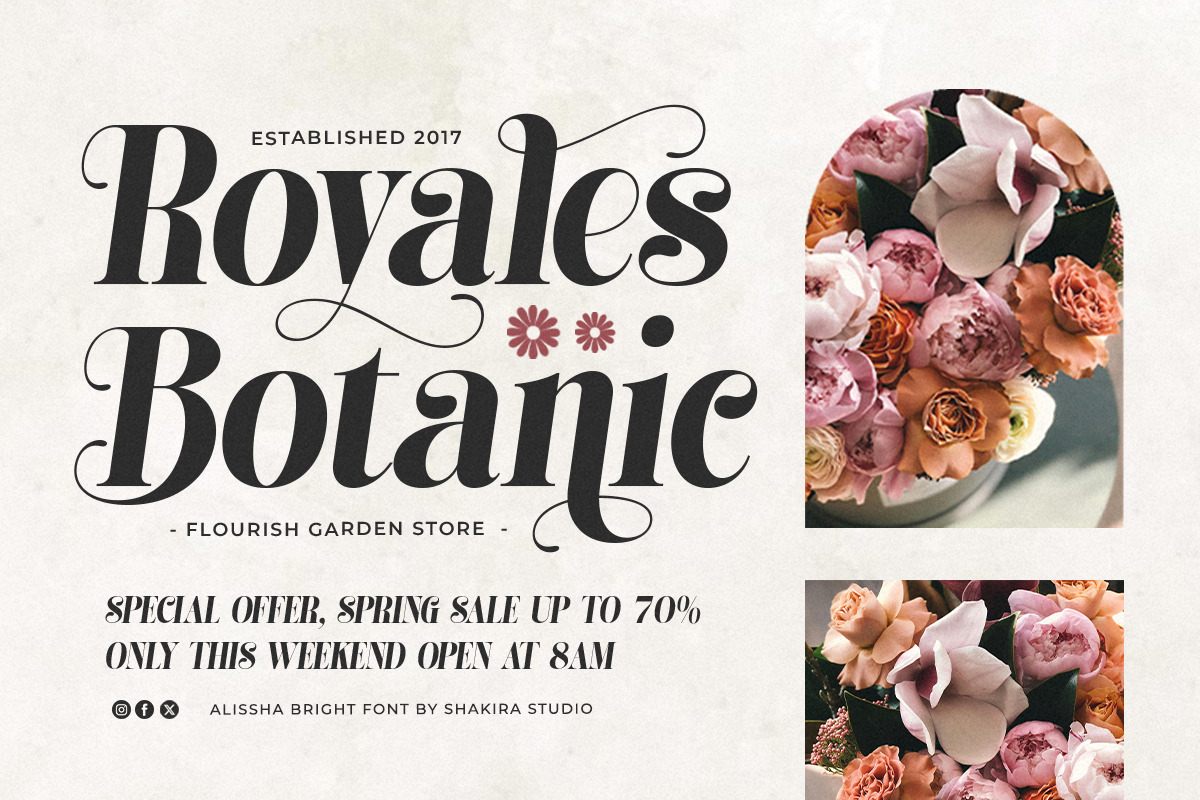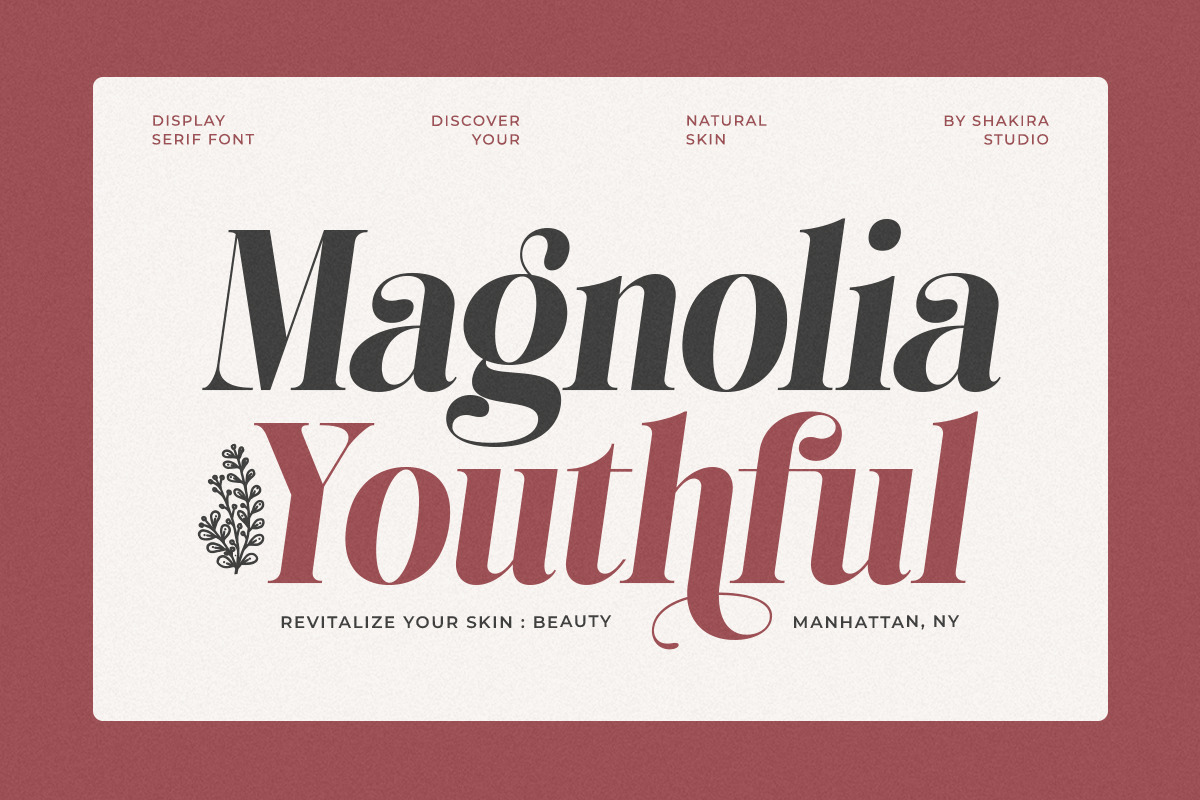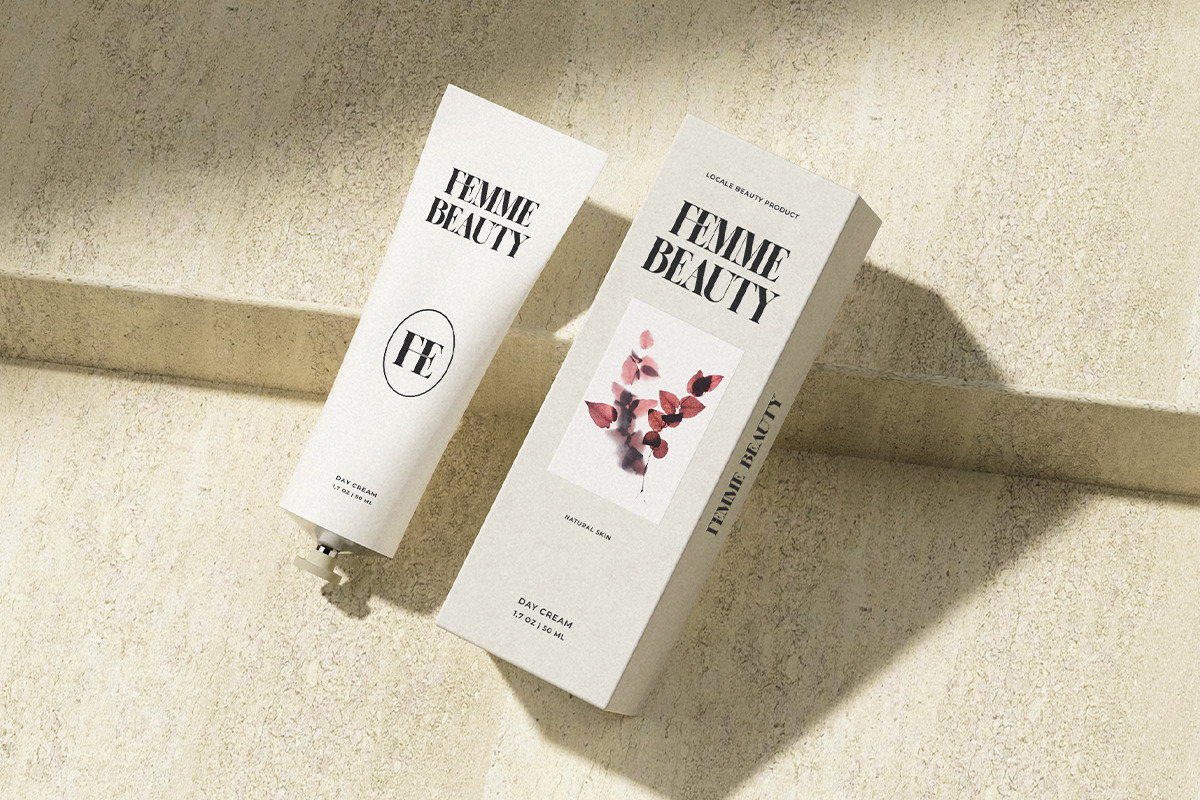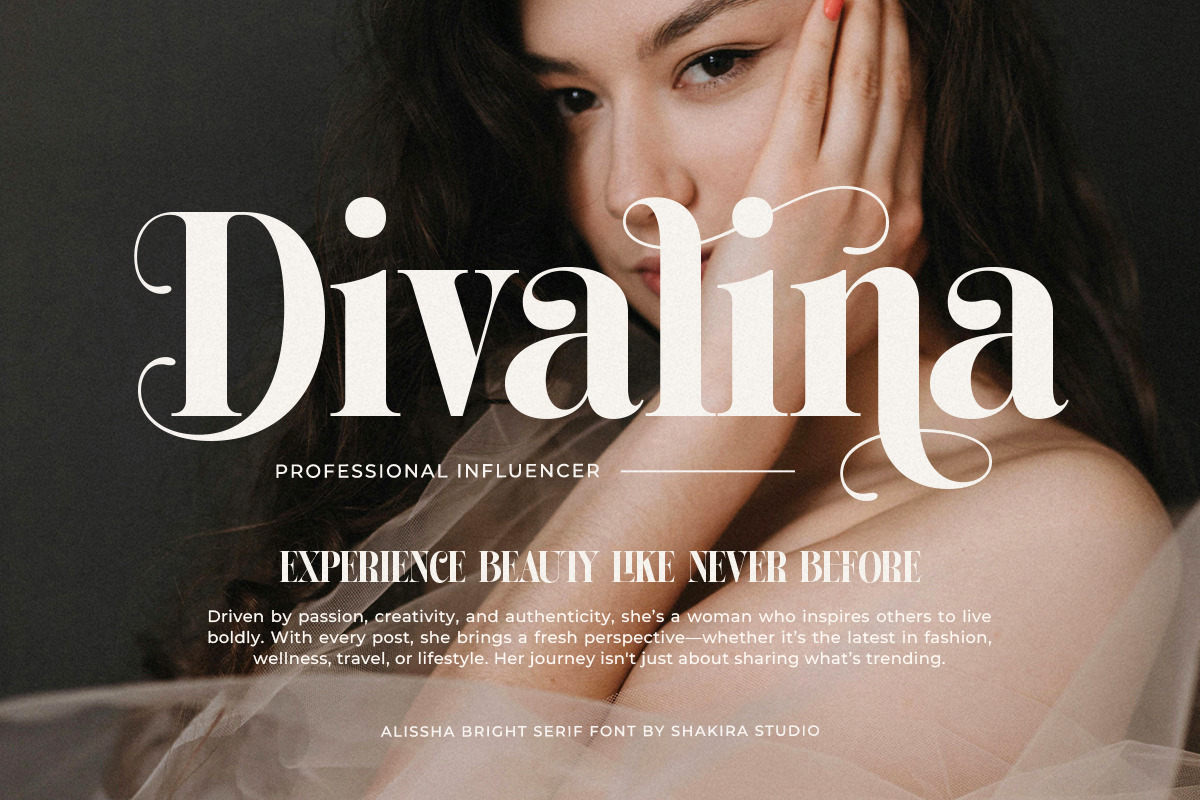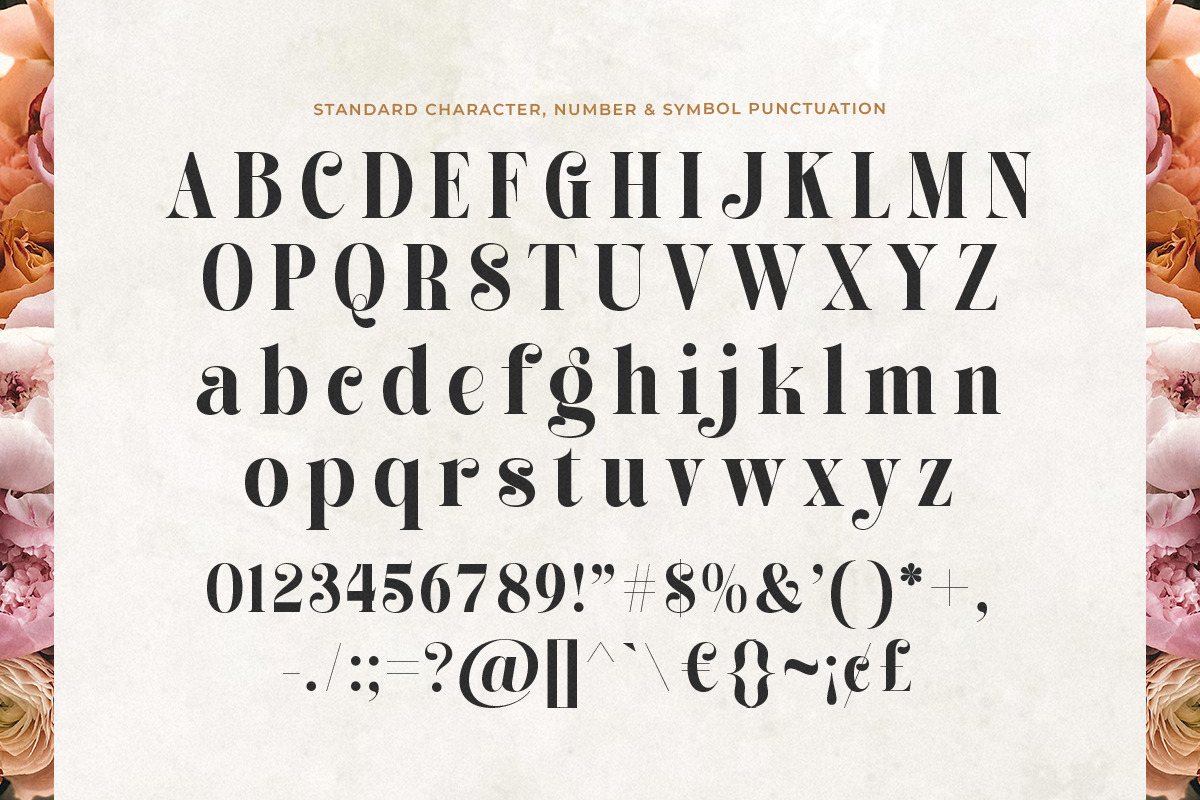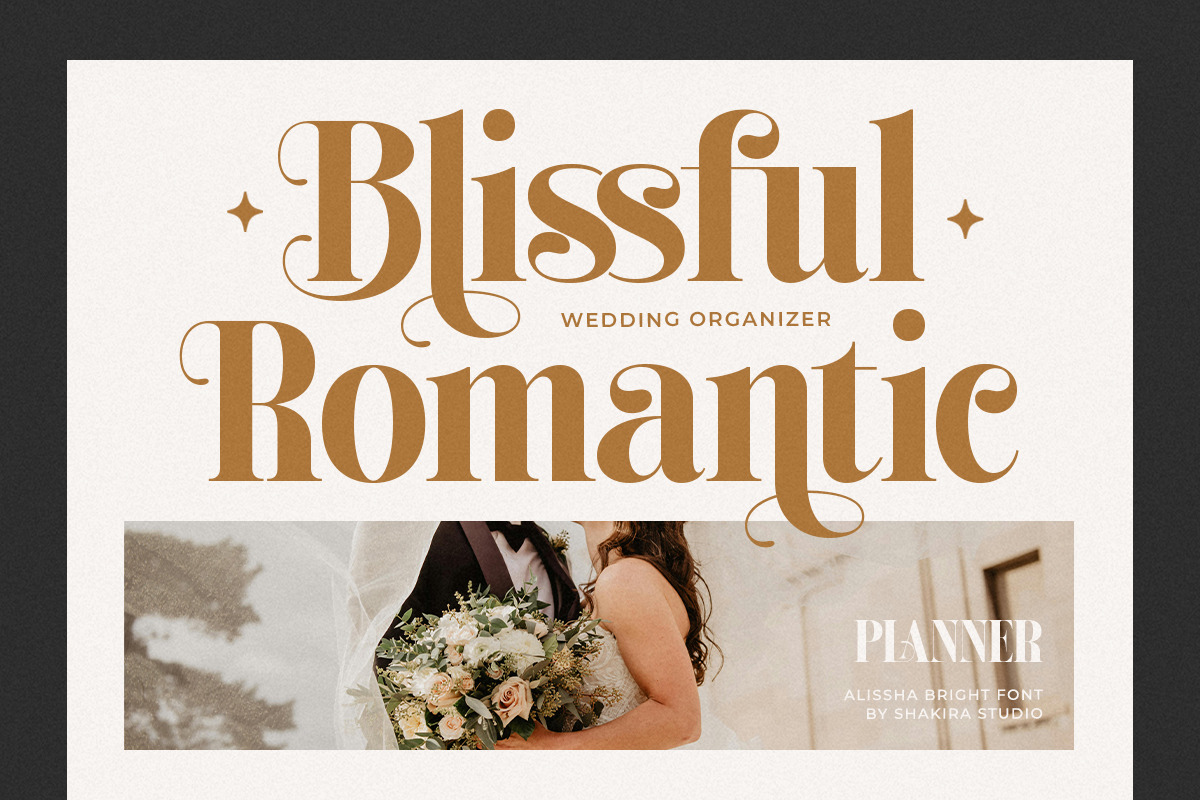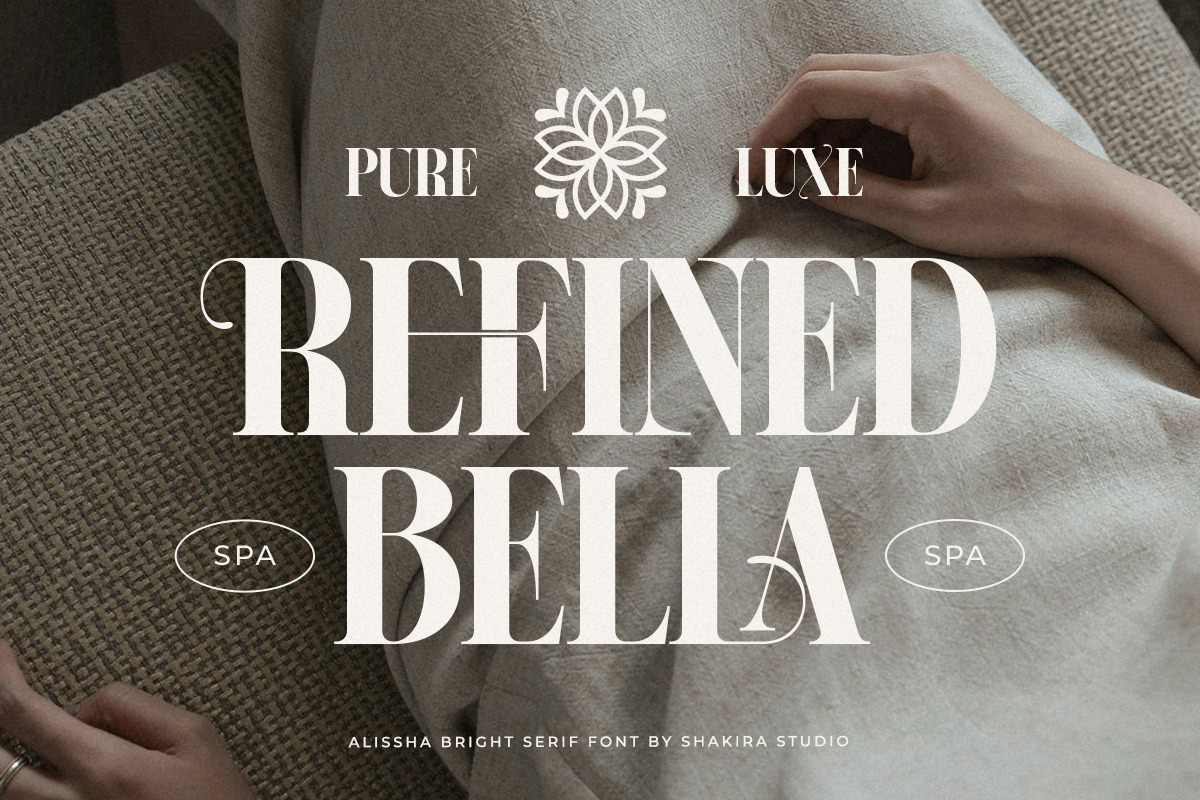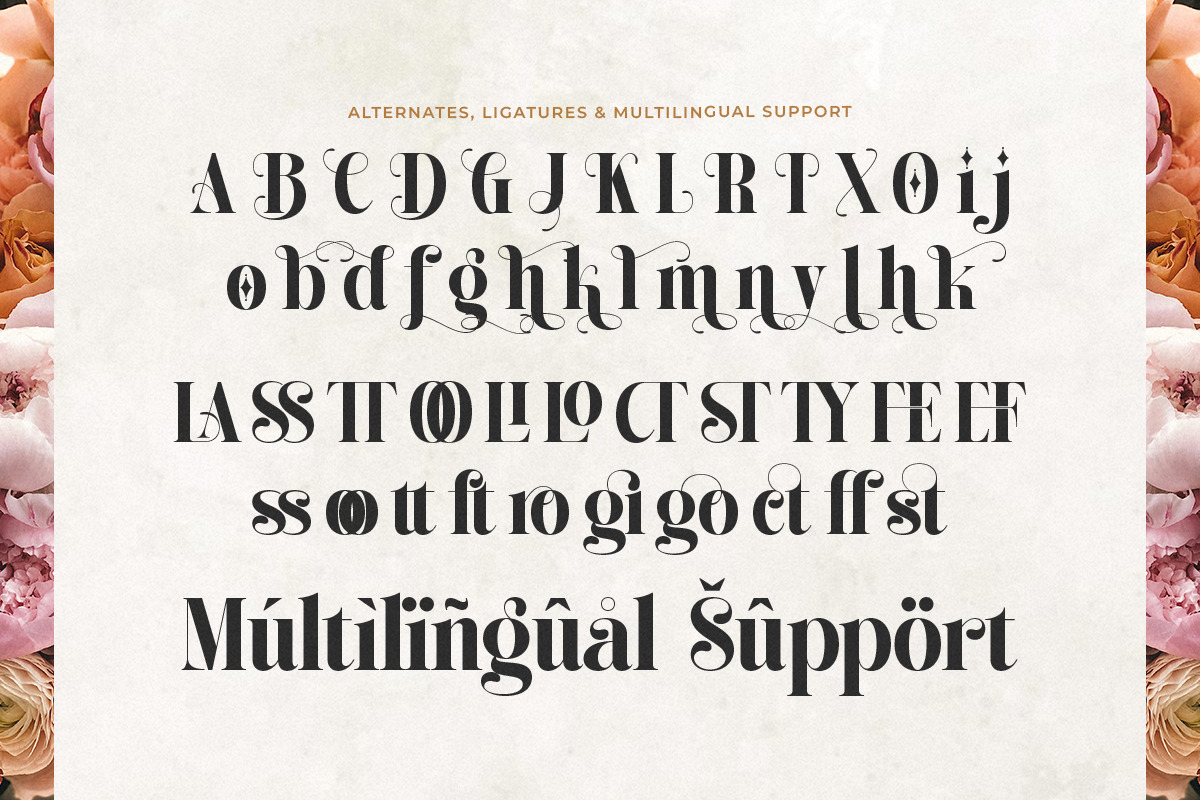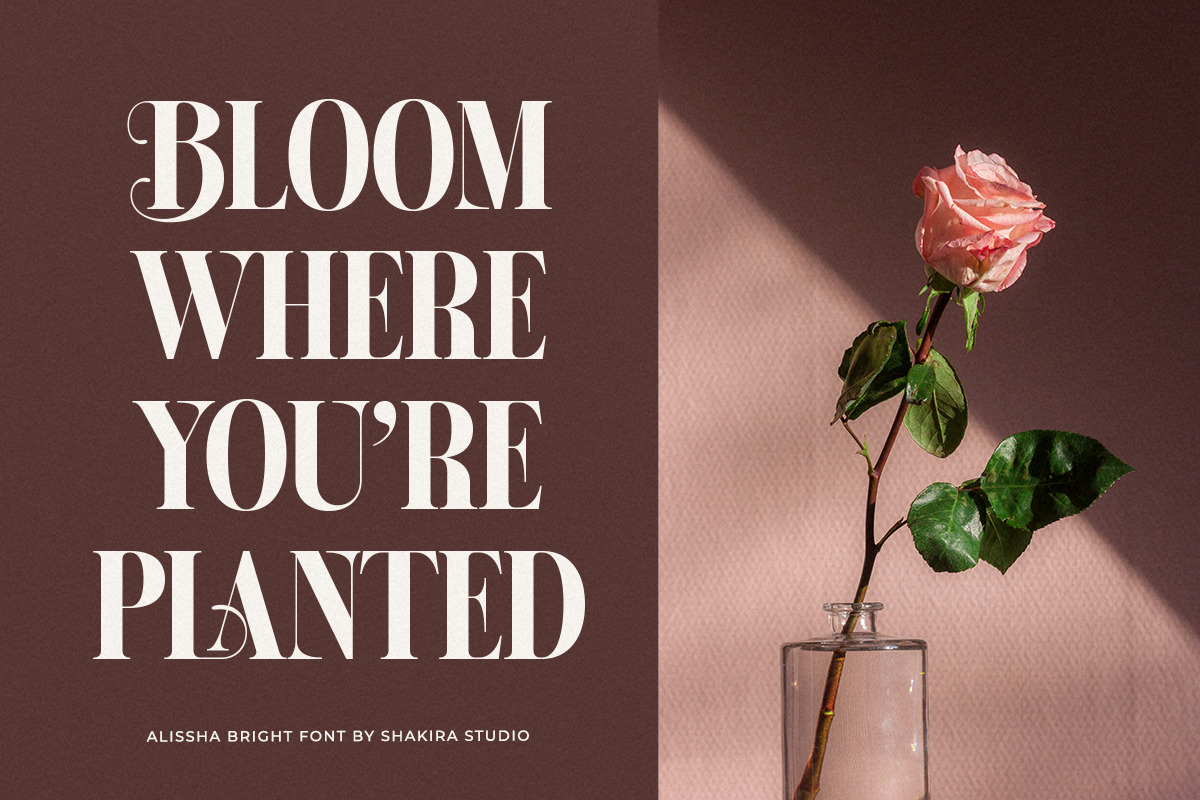
Alissha Bright - Modern Serif
Alisha Bright is a modern display serif font available in both regular and italic styles. With luxurious and elegant characters, this typeface features stylish alternates and ligatures that make it perfect for any creative design. Ideal for branding, invitations, editorial projects, logos, and more, Alisha Bright adds a refined and timeless touch to your work.
- Regular & Italic
- Opentype features ( ligature, alternate )
Multilingual character supports : (Afrikaans, Albanian, Catalan, Croatian, Czech, Danish, Dutch, English, Estonian, Finnish, French, German, Hungarian, Icelandic, Italian, Lithuanian, Maltese, Norwegian, Polish, Portuguese, Slovenian, Spanish, Swedish, Turkish, Zulu)